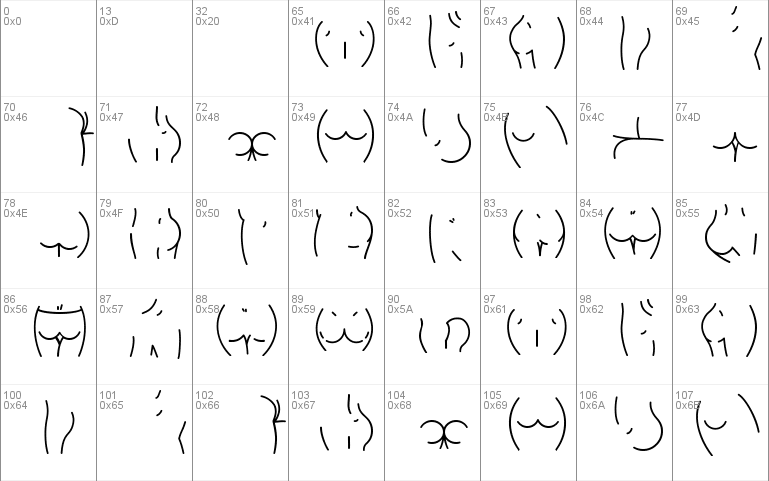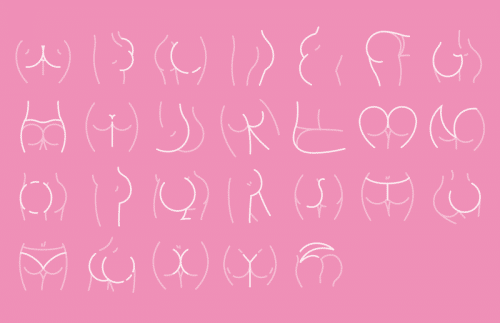
Alphabutt Font is cheeky font works by layering the two styles in different colors.
You’ll want to first layout the “Base” font, and color it. Once everything’s in place, duplicate the text box (place it on a new layer for easier control), change it to the “Letter” font, and change the color. As long as the text boxes stay aligned, you should get a good effect.
If you want to change the text to something different, I recommend using ‘Find and Replace’ so you can do it once for both layers.
- Designer: Loretta Aho